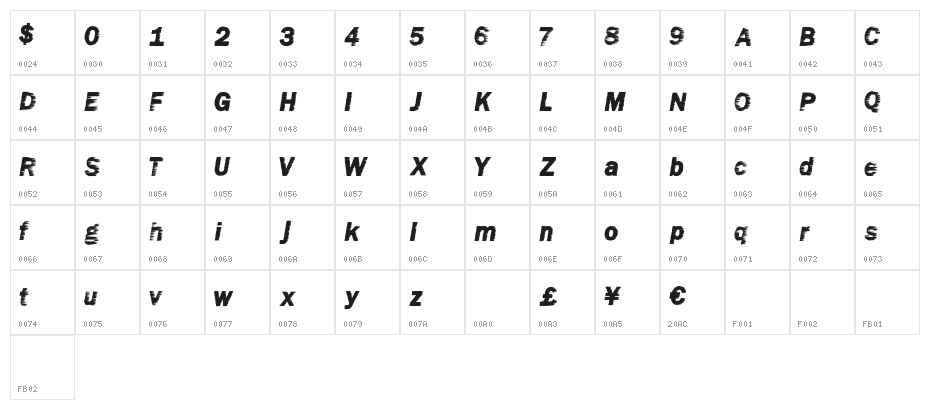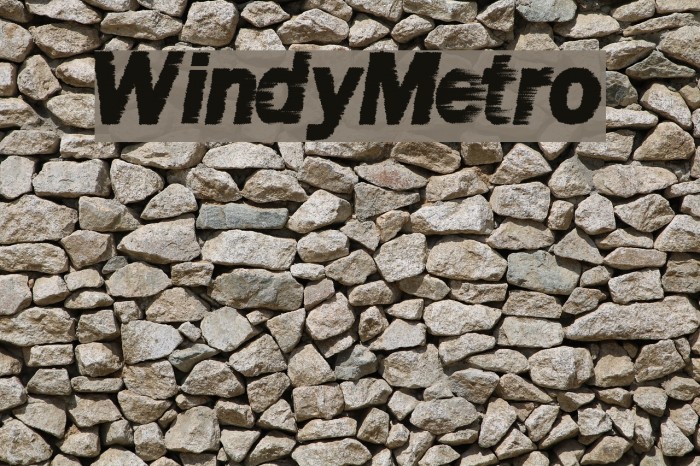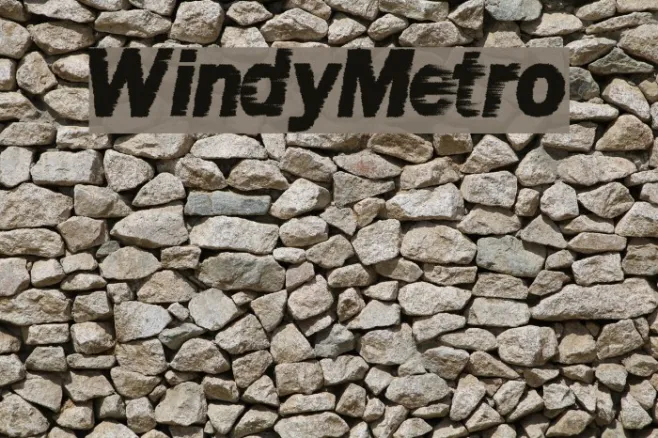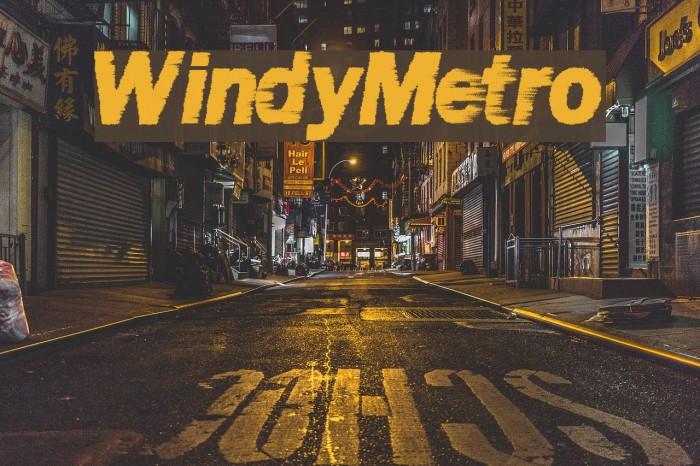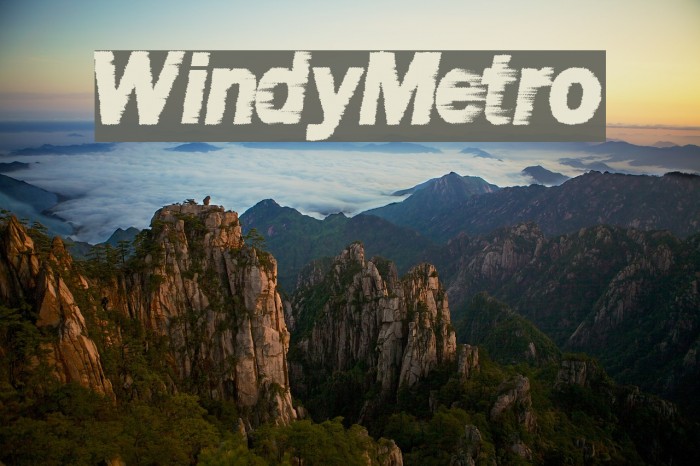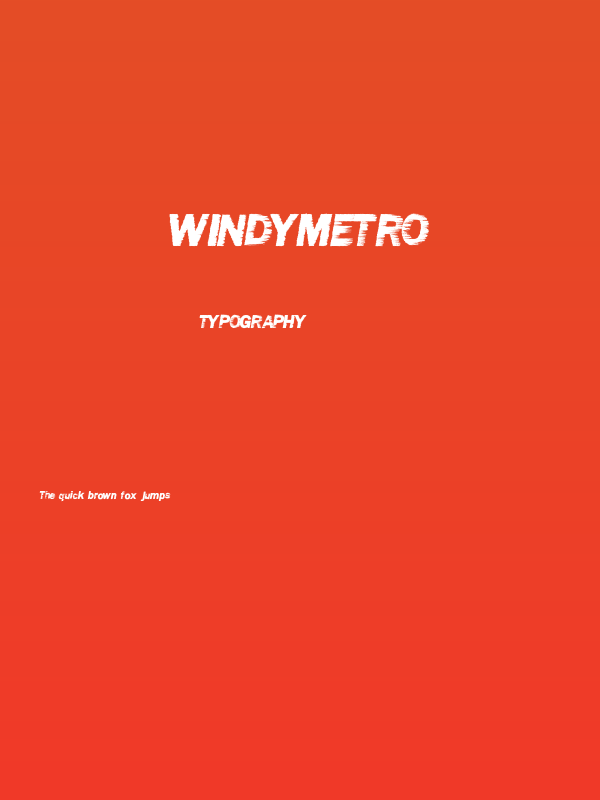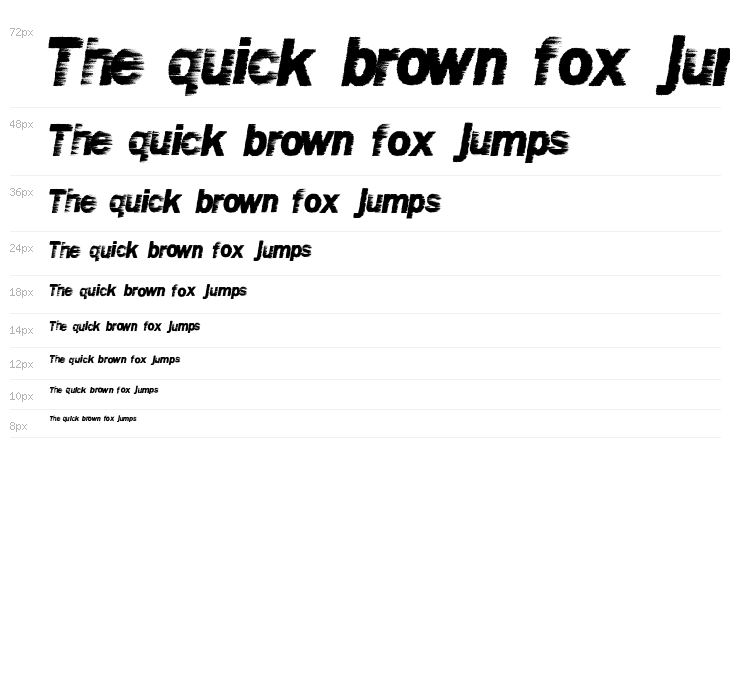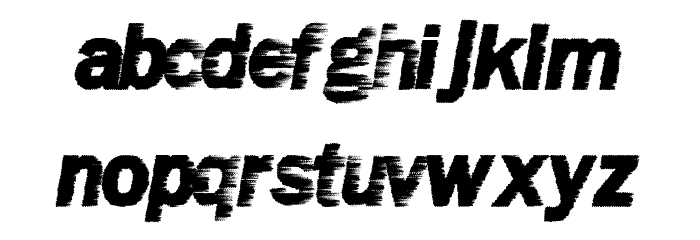
WindyMetro Font
WindyMetro Description
This font features a dynamic and energetic style with a distinct slanted and distorted appearance, reminiscent of motion or wind. The characters are bold and italicized, with a unique texture that gives the impression of speed and movement. The uppercase and lowercase letters maintain a consistent style, while the numbers and special characters follow the same energetic theme. The font's design is eye-catching and modern, making it suitable for projects that require a sense of urgency or excitement.
| Proposed Projects | Ideal for sports branding, dynamic posters, event promotions, and any design requiring a sense of motion or energy. |